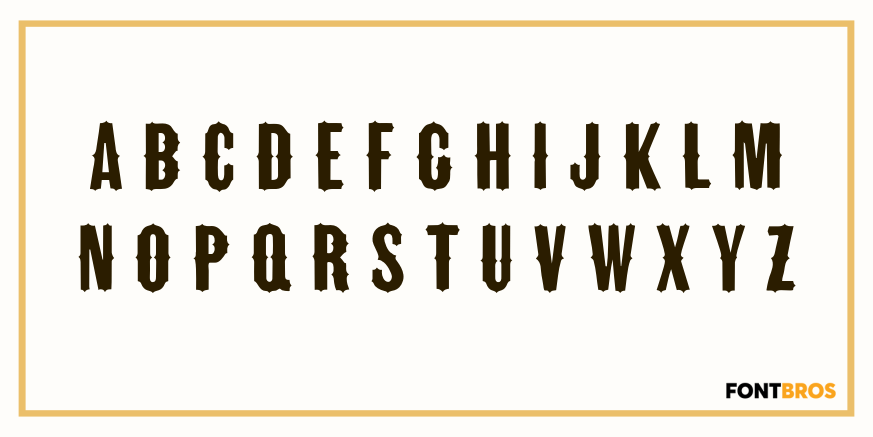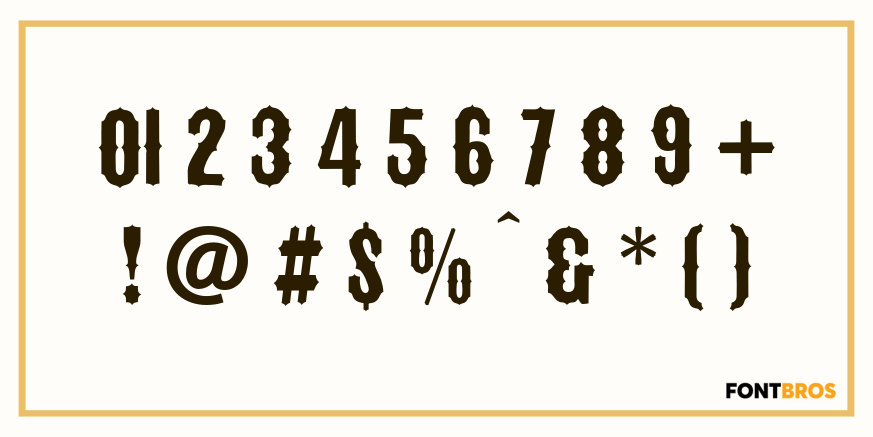
Tuscan Gothic
Font Family by Solotype
This is a Vanderburgh and Wells wood type cap font from 1877.
We don't know if the originators made a lowercase for it, but we did.
Most effective in larger sizes.